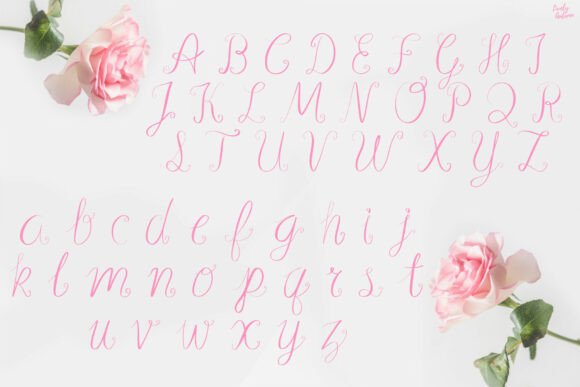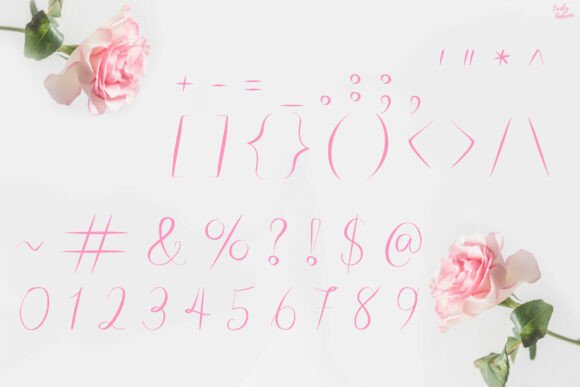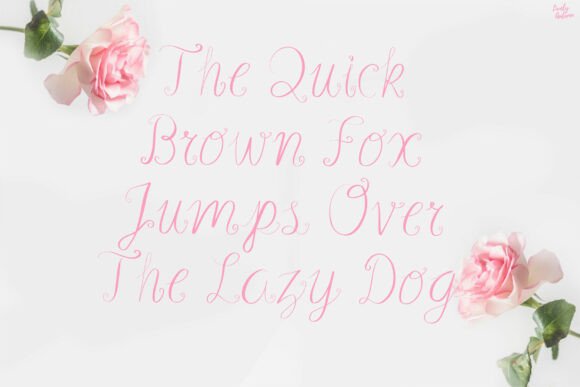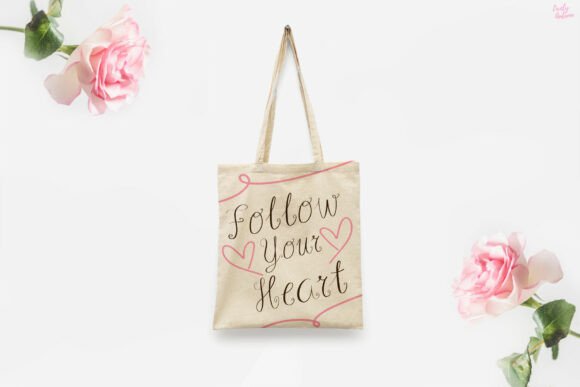
Introducing Dear Heart Font: The Perfect Cursive Script for Your Creative Projects
Are you a designer, crafter, or DIY enthusiast looking for a beautiful and versatile font to elevate your projects? Look no further than Dear Heart Font, a stunning cursive handwritten script font that’s perfect for a wide range of creative endeavors. From invitations and posters to social media graphics, journals, stickers, and more, Dear Heart Font is the ideal choice for adding a touch of elegance and personality to your work.
What is Dear Heart Font?
Dear Heart Font is a carefully crafted cursive script font that’s designed to bring a sense of warmth and sophistication to your projects. With its flowing lines, delicate curves, and whimsical flourishes, this font is sure to capture the hearts of designers, crafters, and DIY enthusiasts alike. Whether you’re creating digital or print materials, Dear Heart Font is the perfect choice for adding a personal touch to your work.
Key Features of Dear Heart Font
- Cursive Handwritten Script: Dear Heart Font features a beautiful, cursive handwritten script that’s perfect for creating elegant and sophisticated text.
- Versatile: This font is suitable for a wide range of projects, from invitations and posters to social media graphics, journals, stickers, and more.
- Easy to Read: Despite its ornate appearance, Dear Heart Font is surprisingly easy to read, making it perfect for both digital and print materials.
- High-Quality: Dear Heart Font is a high-quality font that’s designed to deliver exceptional results, whether you’re working on a professional project or a personal DIY endeavor.
Uses for Dear Heart Font
Dear Heart Font is an incredibly versatile font that can be used for a wide range of projects, including:
- Invitations: Create beautiful, one-of-a-kind invitations for weddings, birthday parties, baby showers, and more.
- Posters: Design eye-catching posters for events, promotions, or advertising campaigns.
- Social Media Graphics: Elevate your social media presence with stunning graphics that showcase your brand’s personality.
- Journals: Add a touch of elegance to your journal or diary with Dear Heart Font.
- Stickers: Create adorable stickers for laptops, water bottles, or any other surface that needs a personal touch.